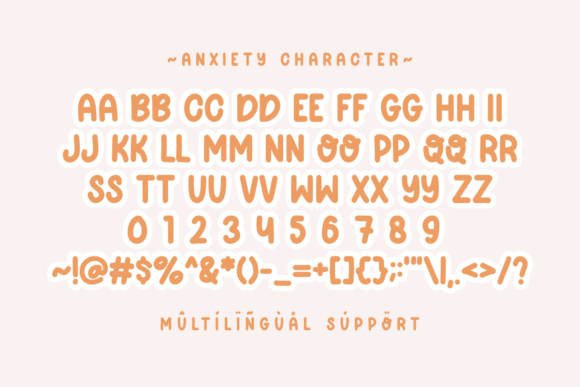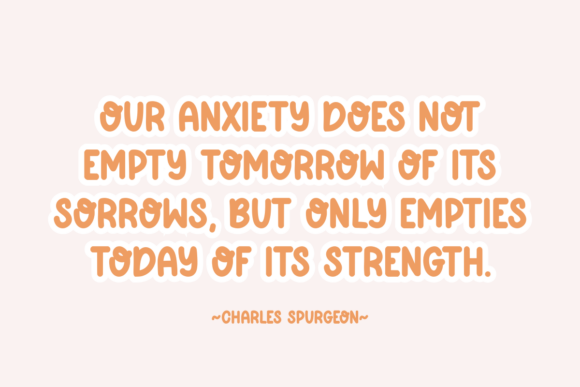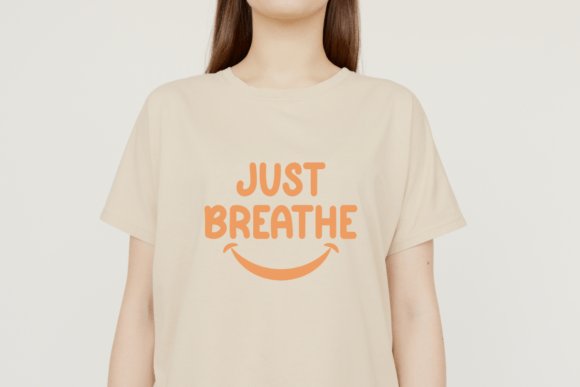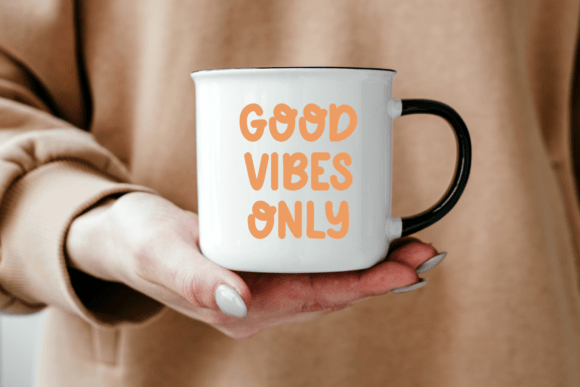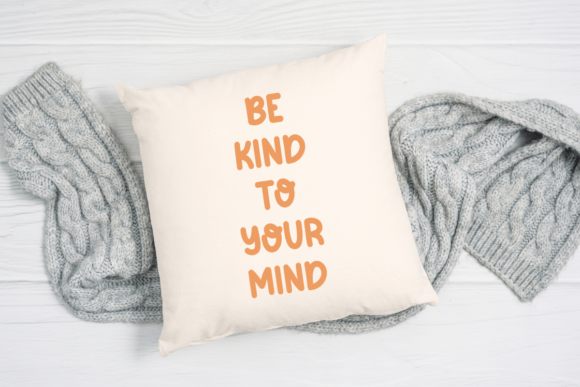
Introducing Anxiety Font: The Cute Sans Serif Font for Creative Projects
Are you a designer or crafter looking for a unique and versatile font to elevate your creative projects? Look no further than Anxiety Font, a charming sans serif font that’s perfect for a wide range of applications. In this article, we’ll explore the features and benefits of Anxiety Font, and how it can help you bring your ideas to life.
What is Anxiety Font?
Anxiety Font is a carefully crafted sans serif font that’s designed to add a touch of personality to your creative projects. Its clean and simple lines make it easy to read and versatile enough to use in various contexts. Whether you’re working on stickers, notes, planners, SVG quotes, t-shirts, wall art, or any other project, Anxiety Font is the perfect choice.
Key Features of Anxiety Font
- Cute and Playful Design: Anxiety Font boasts a charming and playful design that’s sure to capture the attention of your audience.
- Sans Serif Style: The font’s sans serif style makes it easy to read and perfect for use in digital and print materials.
- Highly Versatile: Anxiety Font can be used in a wide range of creative projects, from stickers and notes to posters and wall art.
Creative Project Ideas with Anxiety Font
Anxiety Font is an incredibly versatile font that can be used in various creative projects. Here are some ideas to get you started:
- Stickers: Create custom stickers with Anxiety Font to add a personal touch to your planners, journals, or laptops.
- Notes and Planners: Use Anxiety Font to create beautifully designed notes and planners that are both functional and stylish.
- SVG Quotes: Design stunning SVG quotes with Anxiety Font to inspire and motivate your audience.
- T-Shirts and Apparel: Create eye-catching t-shirts and apparel with Anxiety Font to make a statement.
- Wall Art: Design beautiful wall art with Anxiety Font to add a touch of personality to your home or office.
- Cricut Projects: Use Anxiety Font with your Cricut machine to create custom vinyl decals, iron-on designs, and more.
- Embroidery: Embroider beautiful designs with Anxiety Font to create custom patches, logos, or quotes.
- Posters and Cards: Create stunning posters and cards with Anxiety Font to promote your business or celebrate special occasions.
Why Choose Anxiety Font?
With so many fonts available, why choose Anxiety Font? Here are just a few reasons:
- Unique Design: Anxiety Font boasts a unique and charming design that’s sure to stand out from the crowd.
- High-Quality: Anxiety Font is a high-quality font that’s designed to deliver exceptional results.
In conclusion, Anxiety Font is a versatile and charming sans serif font that’s perfect for a wide range of creative projects. Its clean design, ease of use, and high-quality make it an excellent choice for designers and crafters. Whether you’re working on stickers, notes, planners, or any other project, Anxiety Font is sure to elevate your designs and bring your ideas to life.